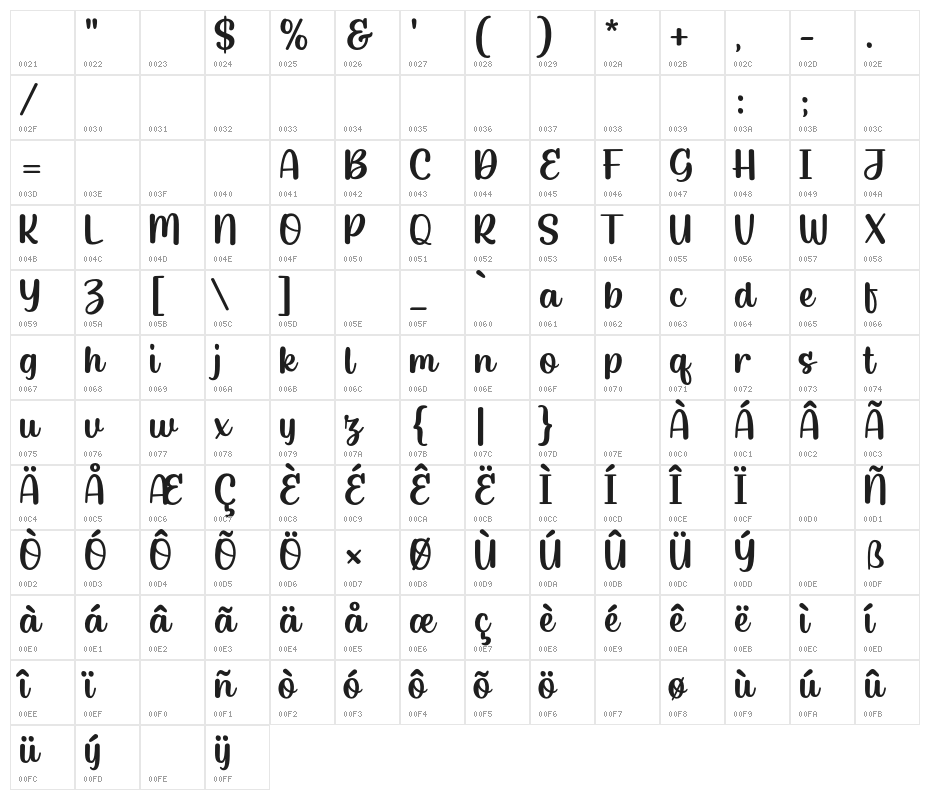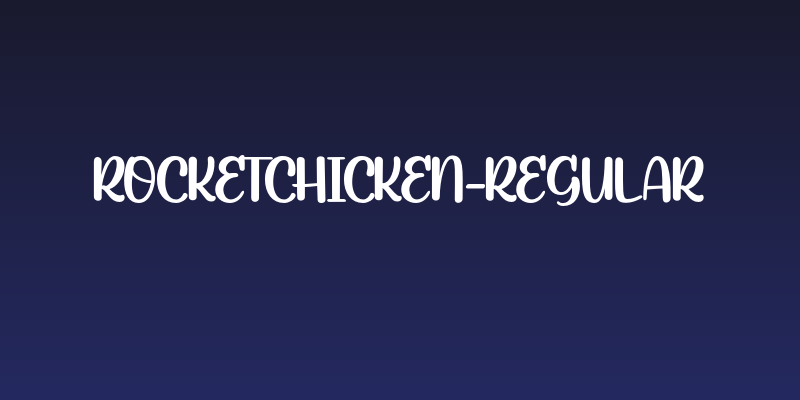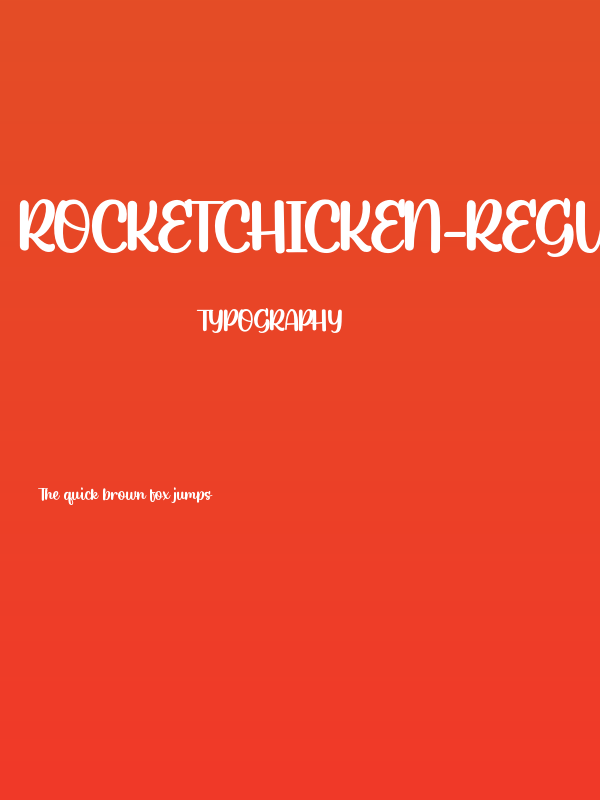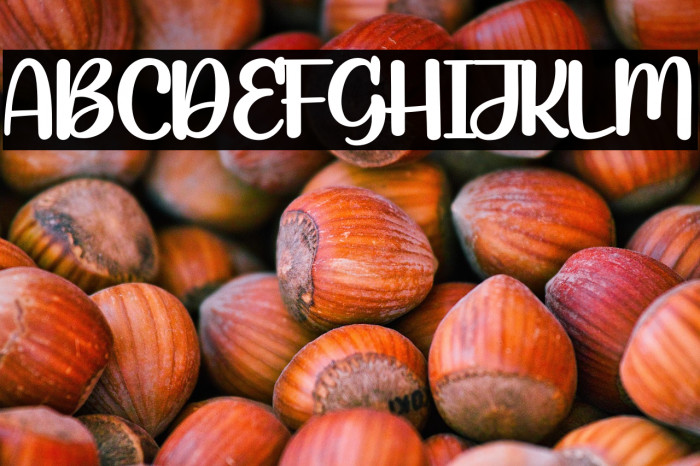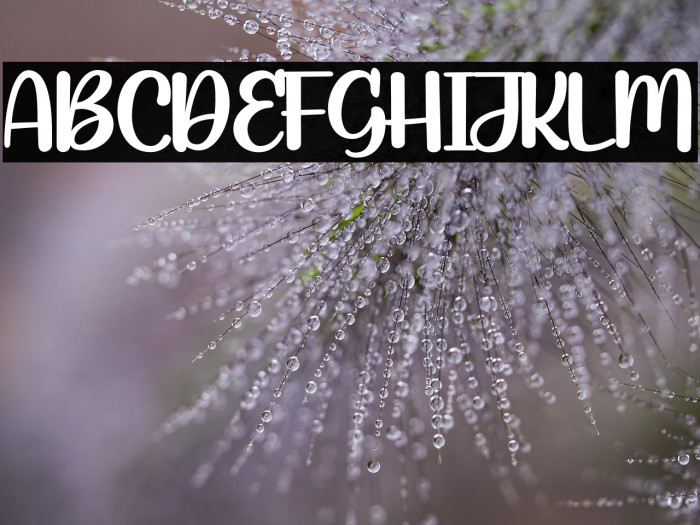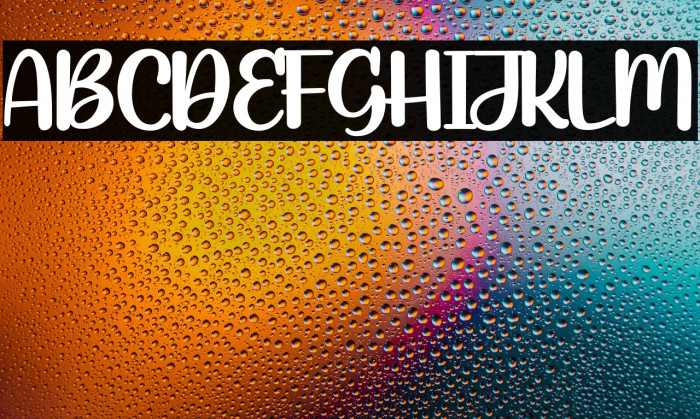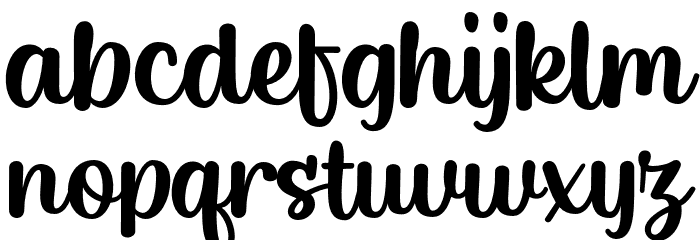
RocketChicken-Regular Font
RocketChicken-Regular Description
This font features a playful and bold script style, characterized by its smooth, flowing curves and thick strokes. The uppercase letters are rounded and have a whimsical flair, while the lowercase letters maintain a consistent, friendly appearance. The numerals and special characters follow the same playful design, making the font cohesive and visually appealing. Its boldness and unique style make it stand out, perfect for projects that require a touch of fun and creativity. The font's design is both modern and approachable, suitable for a variety of uses.
| Font Family | Rocket Chicken |
| Overall Style | Playful, Modern |
| Proposed Projects | Ideal for greeting cards, playful branding, children's books, and creative posters. |